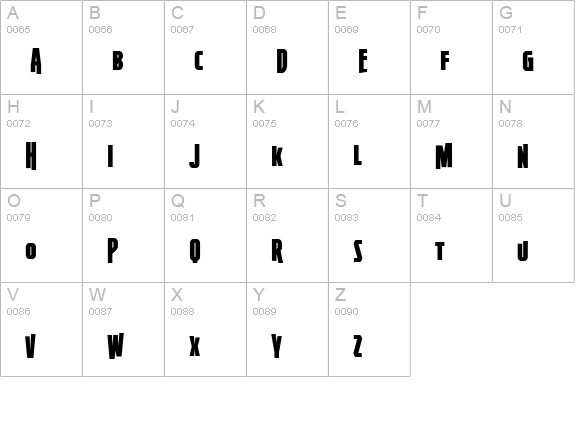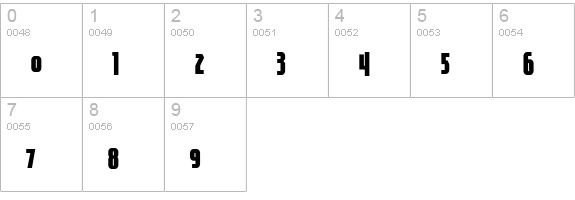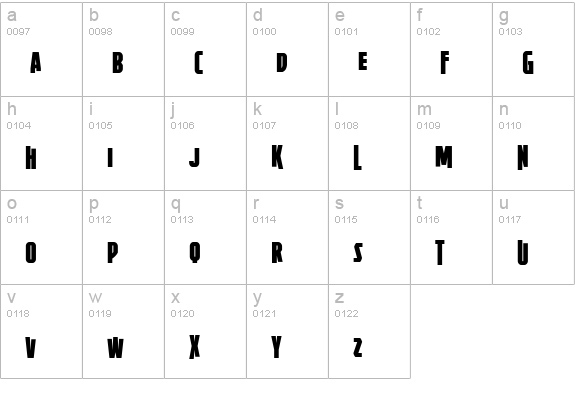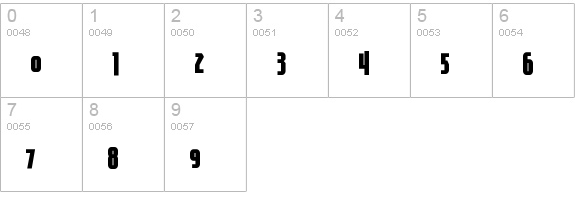
Firepower BB Font Details
Firepower BB font is a bold and dynamic typeface that exudes power and strength. With its sharp edges and strong presence, this font is perfect for making a statement in your designs. Whether you're creating posters, banners, or logos, Firepower BB will command attention and leave a lasting impression. What makes Firepower BB even more appealing is that it is available for free download at FontsMarket.com. This means you can easily add this striking font to your collection without any cost. Don't miss out on the opportunity to enhance your projects with the impactful Firepower BB font, now just a click away for free at FontsMarket.com.